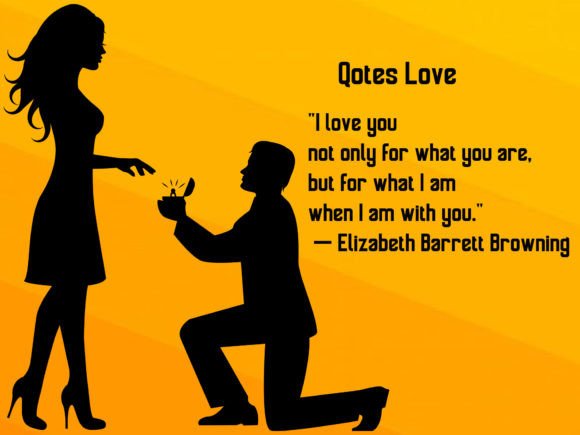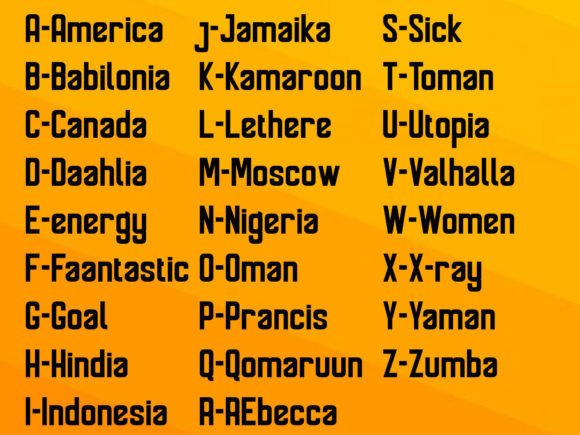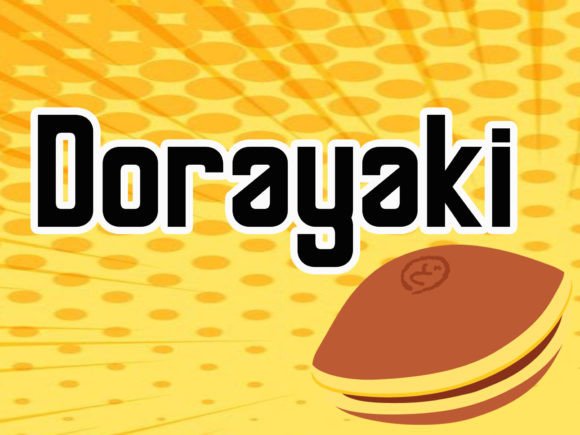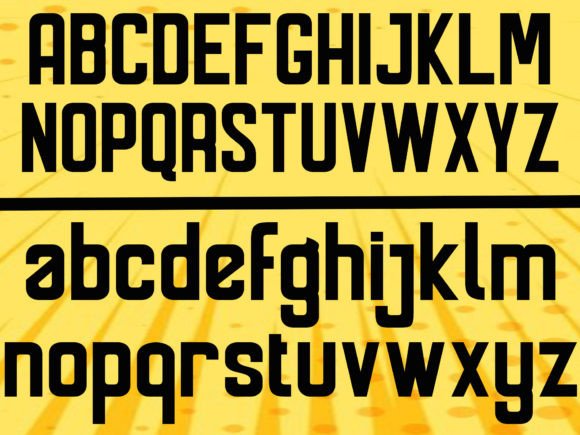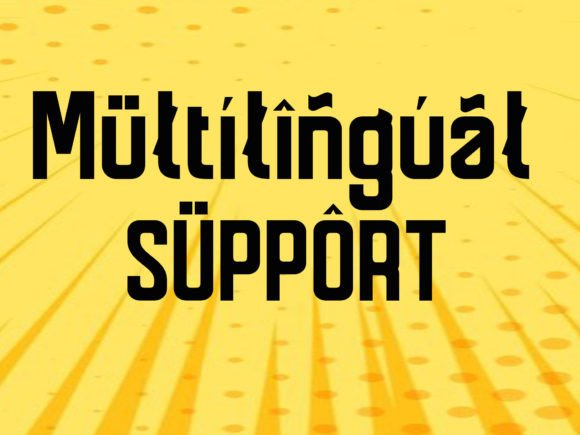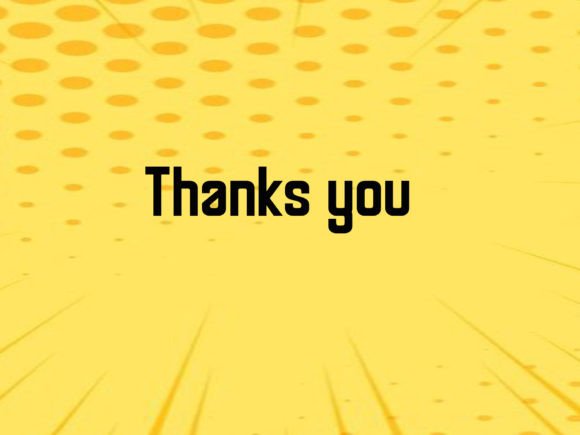
Introducing Ginonger Font: The Ultimate Modern Sans-Serif for Your Design Projects
In the world of typography, a font can make or break a design project. With the right font, you can elevate your brand’s visual identity, convey your message with clarity, and leave a lasting impression on your audience. If you’re on the hunt for a modern sans-serif font that exudes professionalism and sophistication, look no further than Ginonger Font. In this article, we’ll dive into the features, benefits, and uses of Ginonger Font, and explore why it’s an excellent choice for designers and crafters.
What is Ginonger Font?
Ginonger Font is a modern sans-serif font designed with a beautiful and minimalist shape. Its clean, contemporary design makes it an ideal choice for any project that requires a professional touch. Whether you’re working on a website, branding material, marketing campaign, invitations, banners, mockups, or any other design project, Ginonger Font is a versatile and reliable option.
Key Features of Ginonger Font
- Modern Sans-Serif Design: Ginonger Font boasts a sleek and modern sans-serif design that is both visually appealing and highly legible.
- Multilingual Support: With multilingual support, you can use Ginonger Font to reach a global audience and communicate with your target market in their native language.
- Clean and Minimalist Shape: The font’s clean and minimalist shape makes it perfect for projects that require a professional and sophisticated look.
- High Versatility: Ginonger Font can be used for a wide range of design projects, from websites and branding materials to marketing campaigns and invitations.
Benefits of Using Ginonger Font
So, why choose Ginonger Font for your design projects? Here are just a few benefits of using this exceptional font:
- Enhance Your Brand’s Visual Identity: With Ginonger Font, you can create a consistent visual brand identity that reflects your values and personality.
- Improve Readability: The font’s clean and modern design ensures that your message is communicated clearly and effectively.
- Stand Out from the Crowd: Ginonger Font’s unique and sophisticated design helps you stand out from the competition and leave a lasting impression on your audience.
- Save Time and Effort: With Ginonger Font’s versatility and multilingual support, you can save time and effort on your design projects and focus on what matters most – creating stunning visuals.
Who Can Benefit from Ginonger Font?
Ginonger Font is an excellent choice for a wide range of designers and crafters, including:
- Graphic Designers: Whether you’re working on branding materials, marketing campaigns, or invitations, Ginonger Font is a great addition to your font library.
- Web Designers: With its clean and modern design, Ginonger Font is perfect for web design projects that require a professional touch.
- Digital Artists: If you’re creating digital art, illustrations, or graphics, Ginonger Font can add a touch of sophistication and elegance to your work.
- Crafters and Makers: Whether you’re creating handmade products, crafting digital products, or selling print-on-demand items, Ginonger Font can elevate your brand’s visual identity.
In conclusion, Ginonger Font is an exceptional modern sans-serif font that offers a beautiful and minimalist shape, multilingual support, and high versatility. Whether you’re a designer, crafter, or maker, this font is an excellent choice for any project that requires a professional touch. With its clean and contemporary design, Ginonger Font can enhance your brand’s visual identity, improve readability, and help you stand out from the crowd. So why wait? Download Ginonger Font today and take your design projects to the next level!